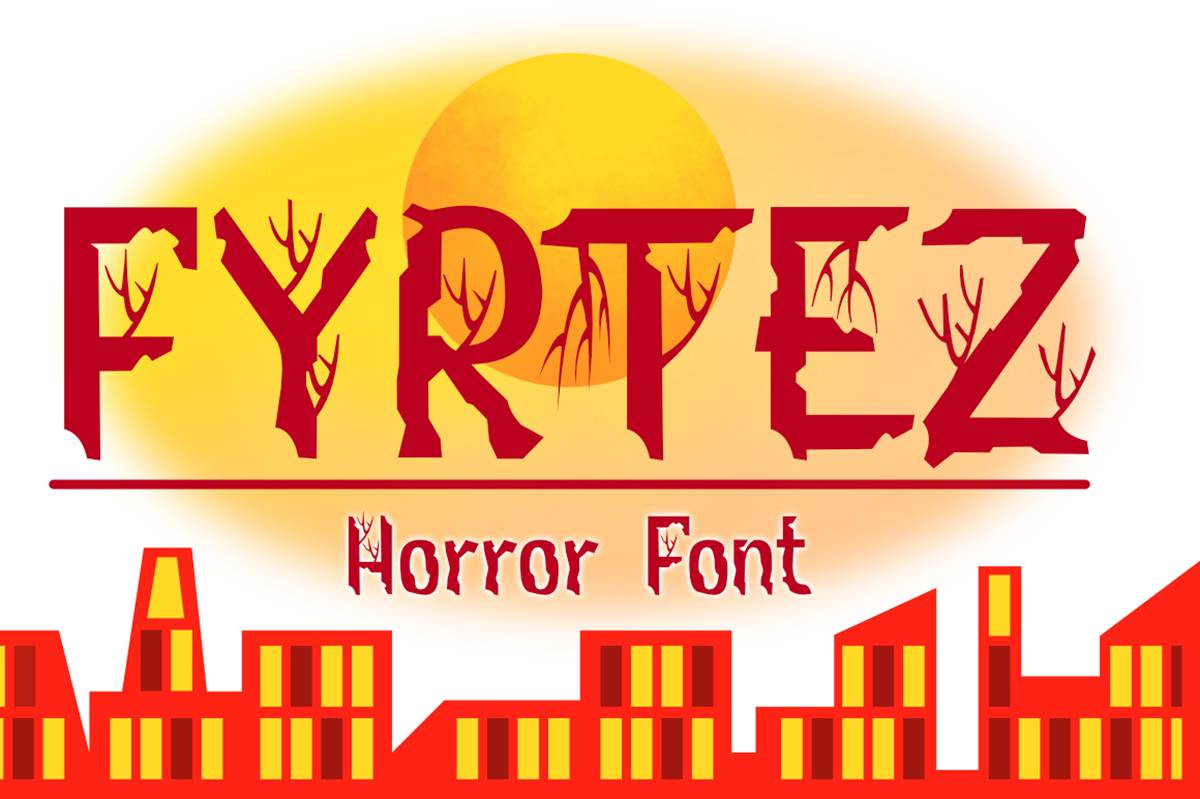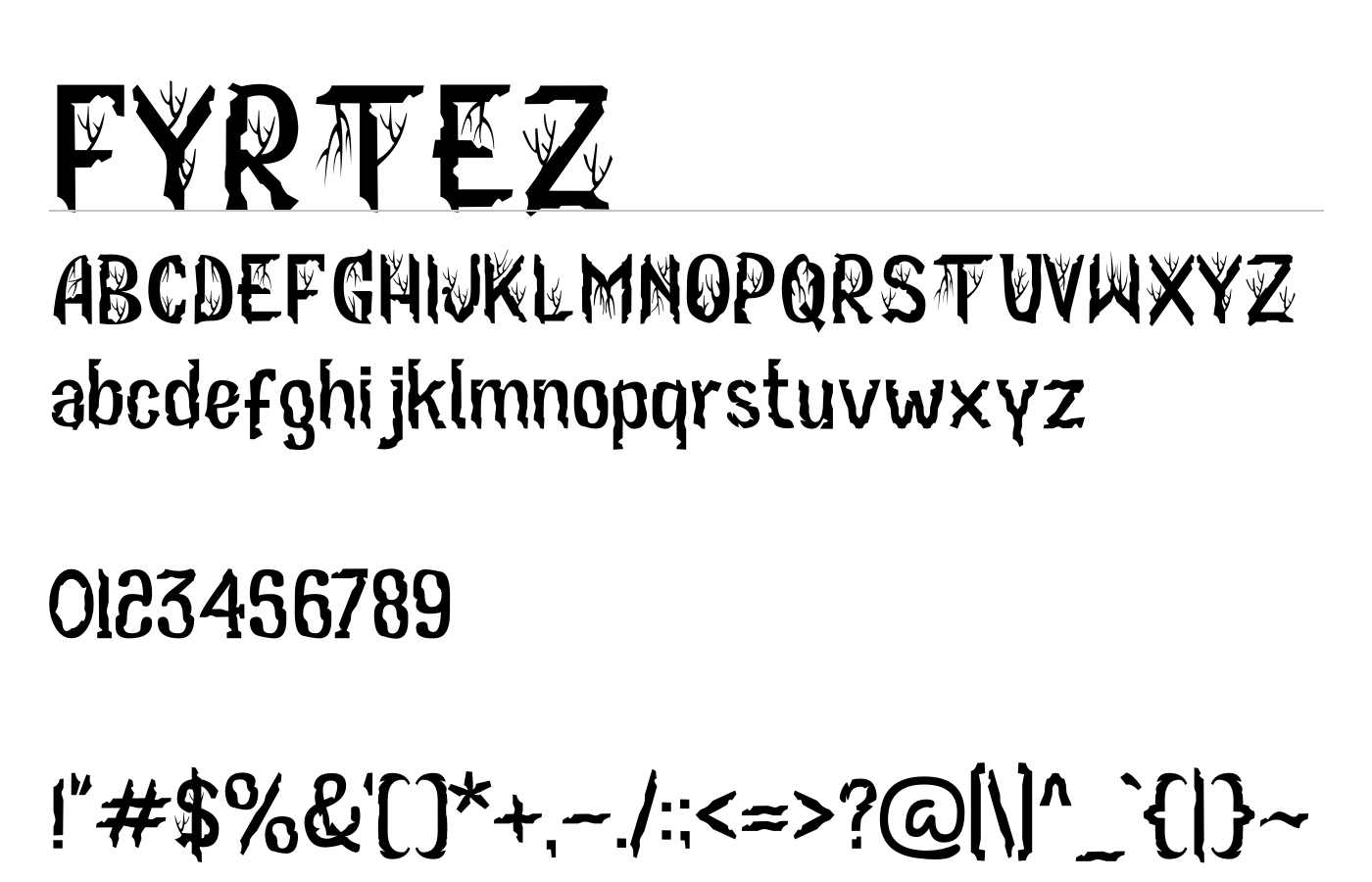
Fyrtez is a bold, decorative serif font with a spooky, organic vibe created by branch-like details integrated into its sturdy letterforms. Its moderately tall x-height and mixed sharp and uneven strokes give it a dramatic, eerie character perfect for Halloween-themed designs, posters, and branding that needs a distinctive, mysterious touch. This font excels in display use where its unique style can capture attention and set a haunting, playful mood.
| Font family | Fyrtez Font |
| Designer | Arvan Fatwa |